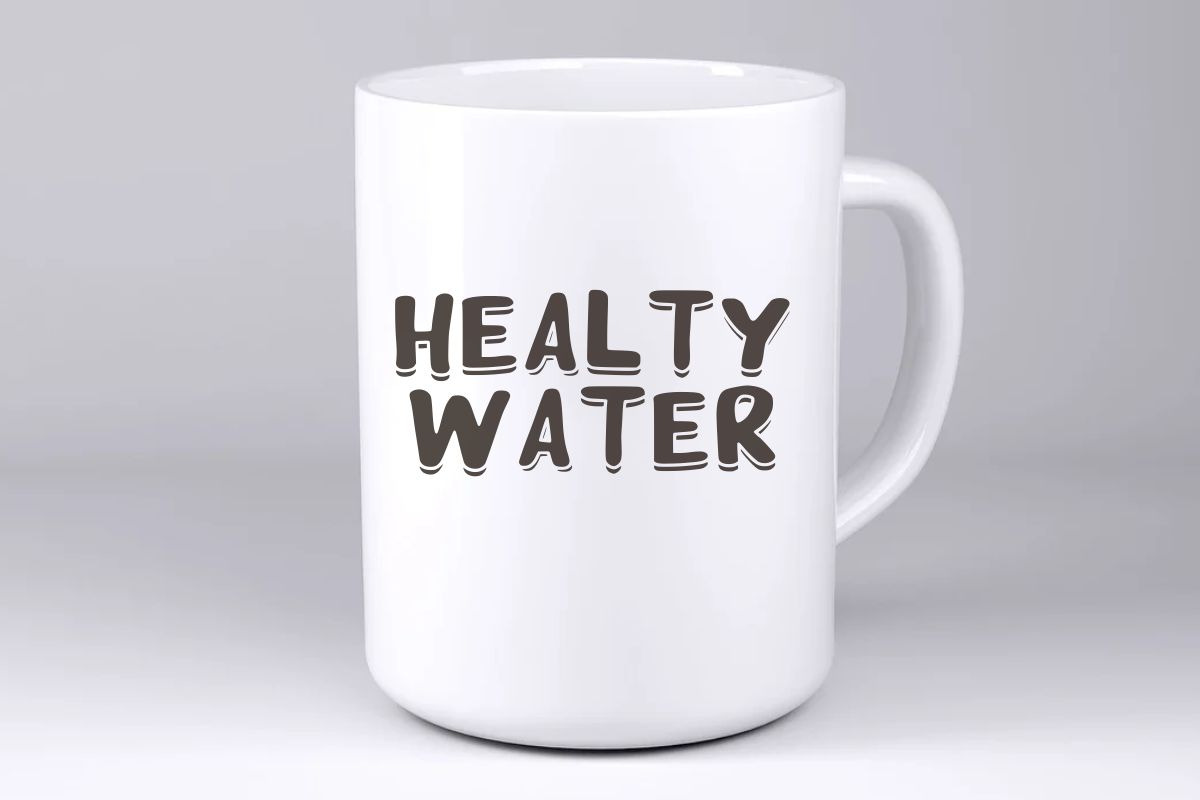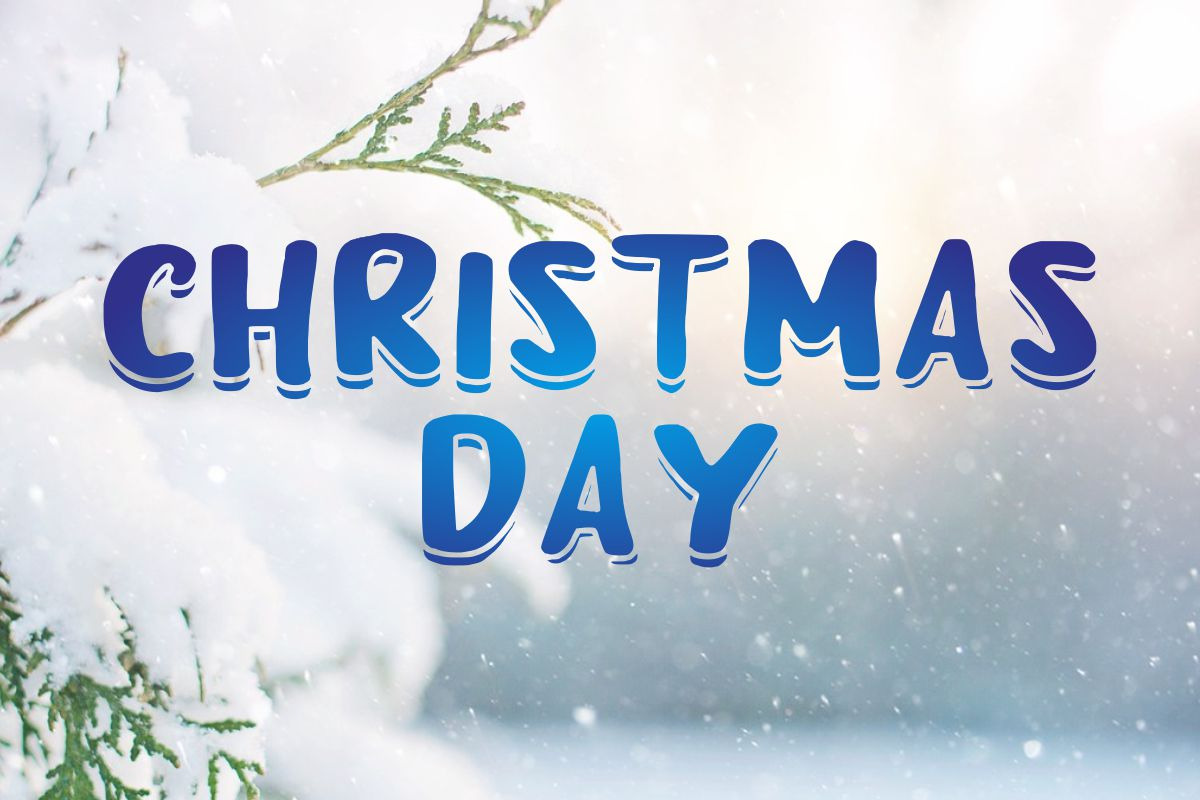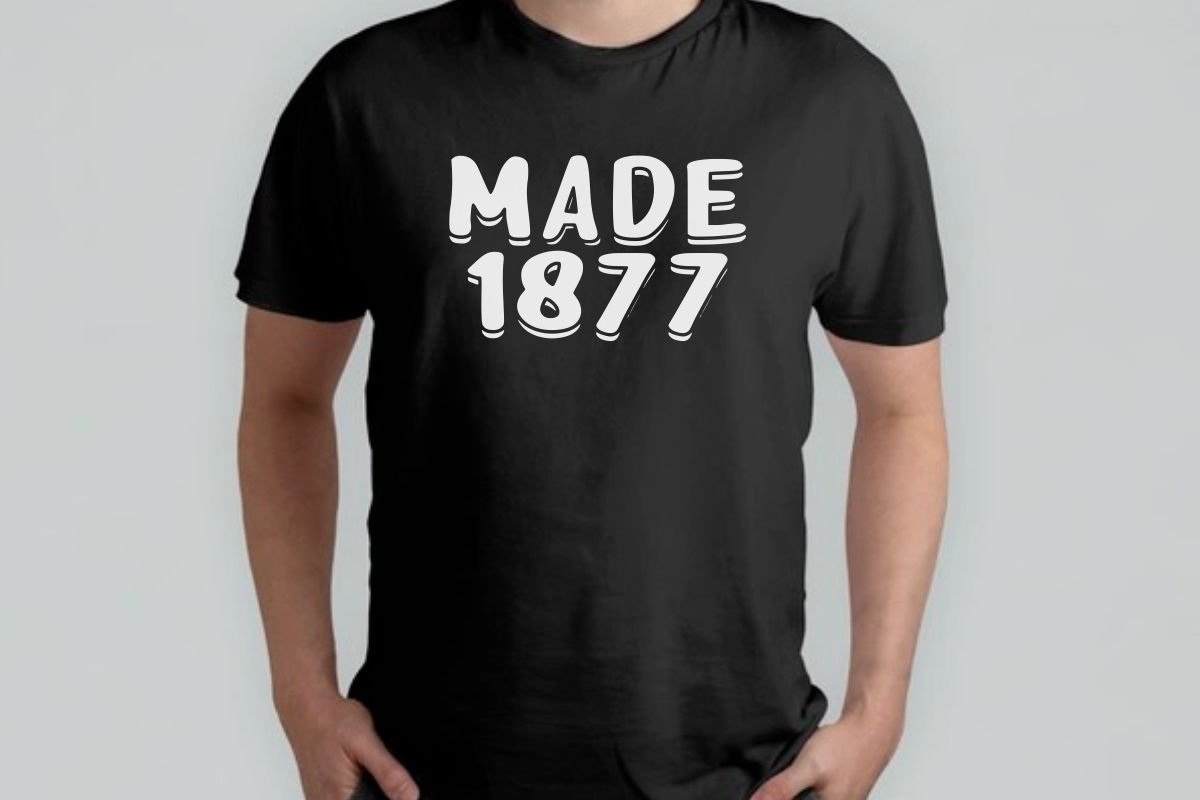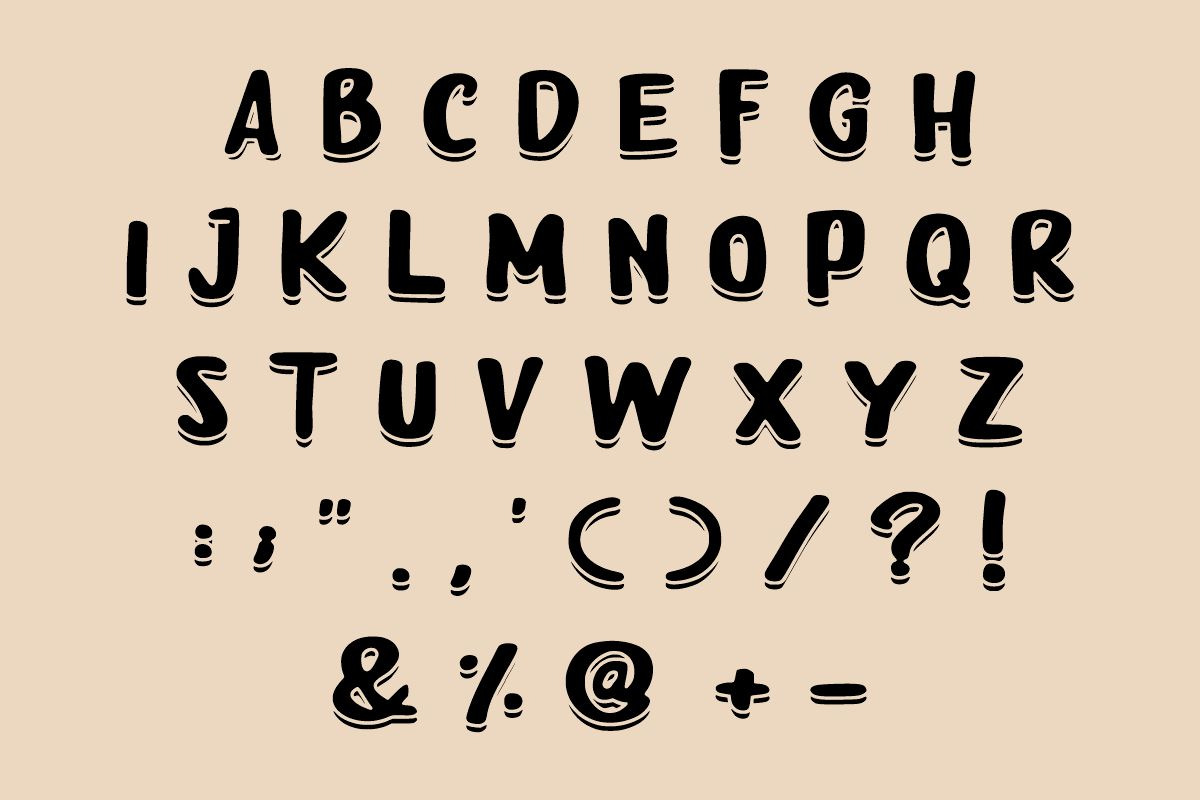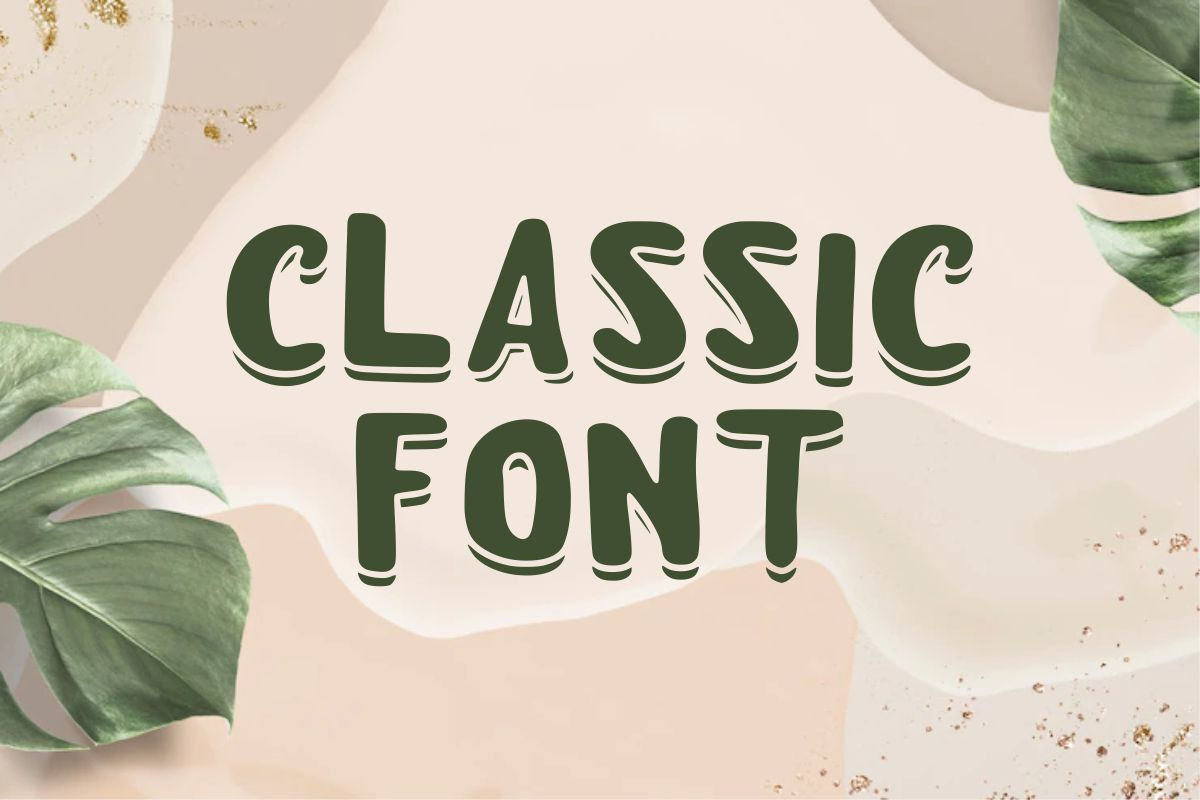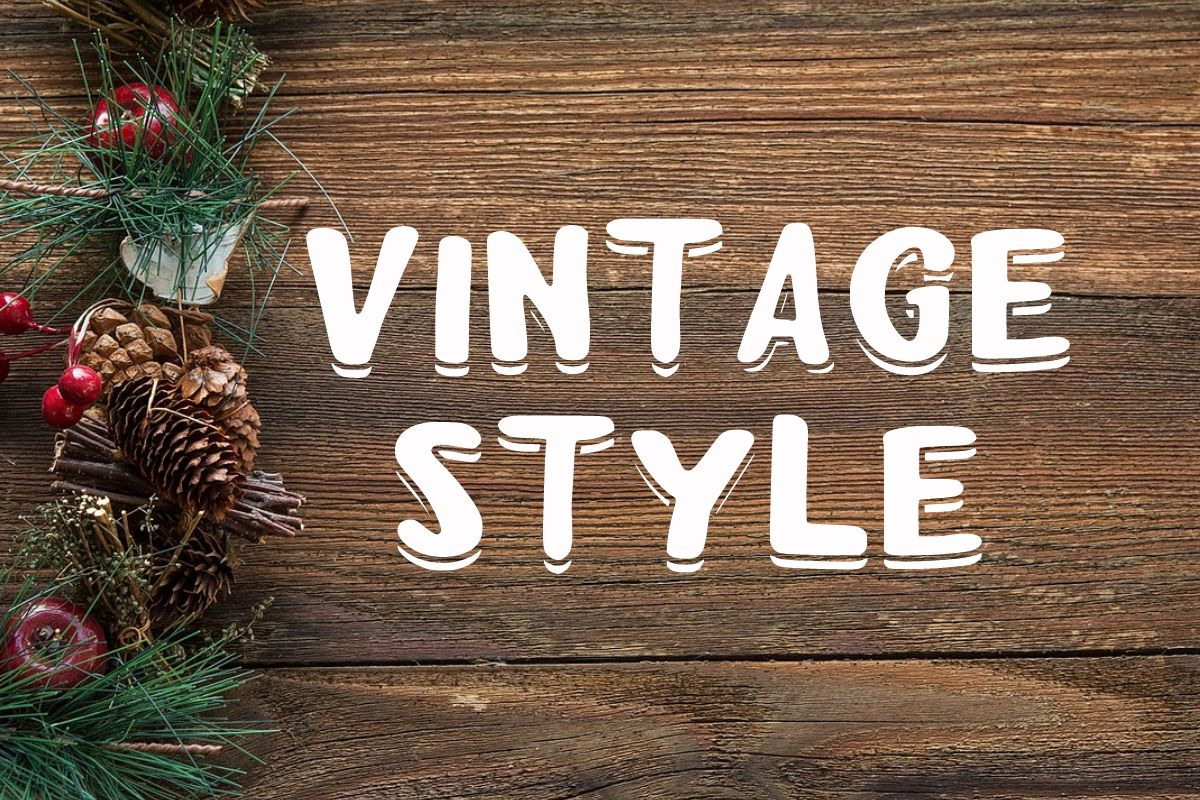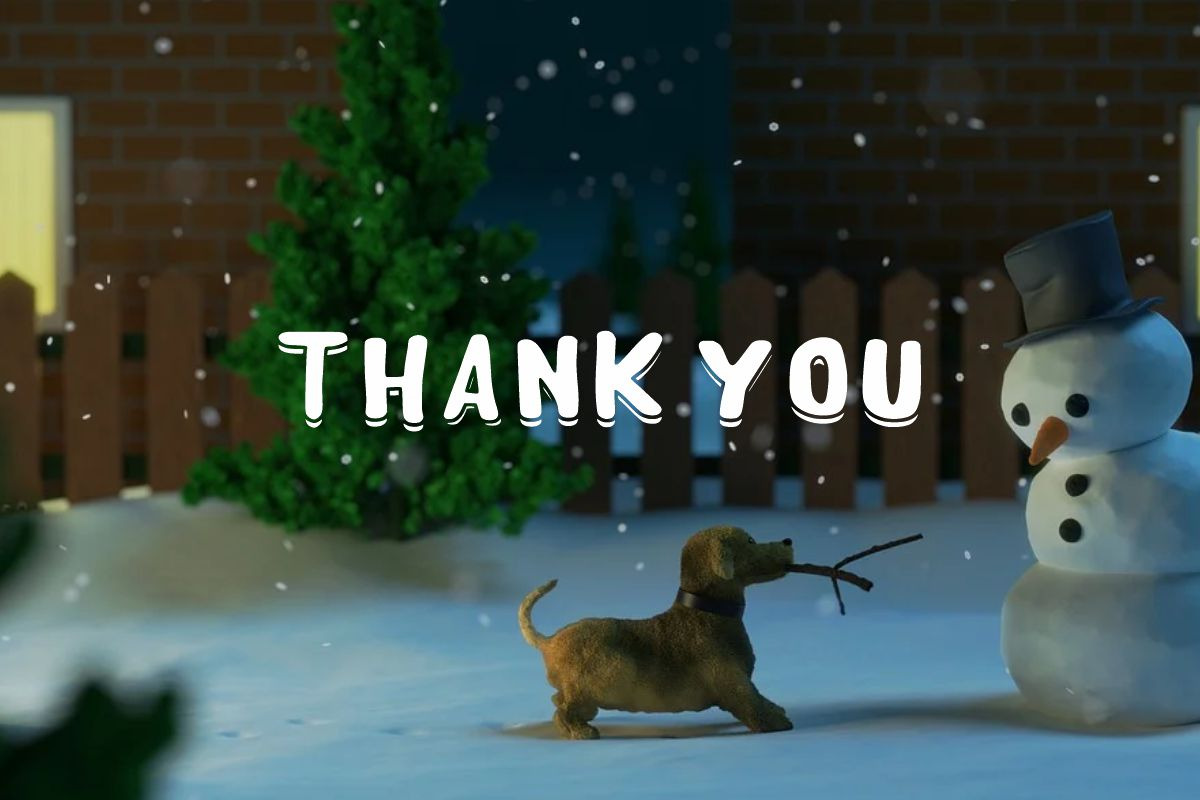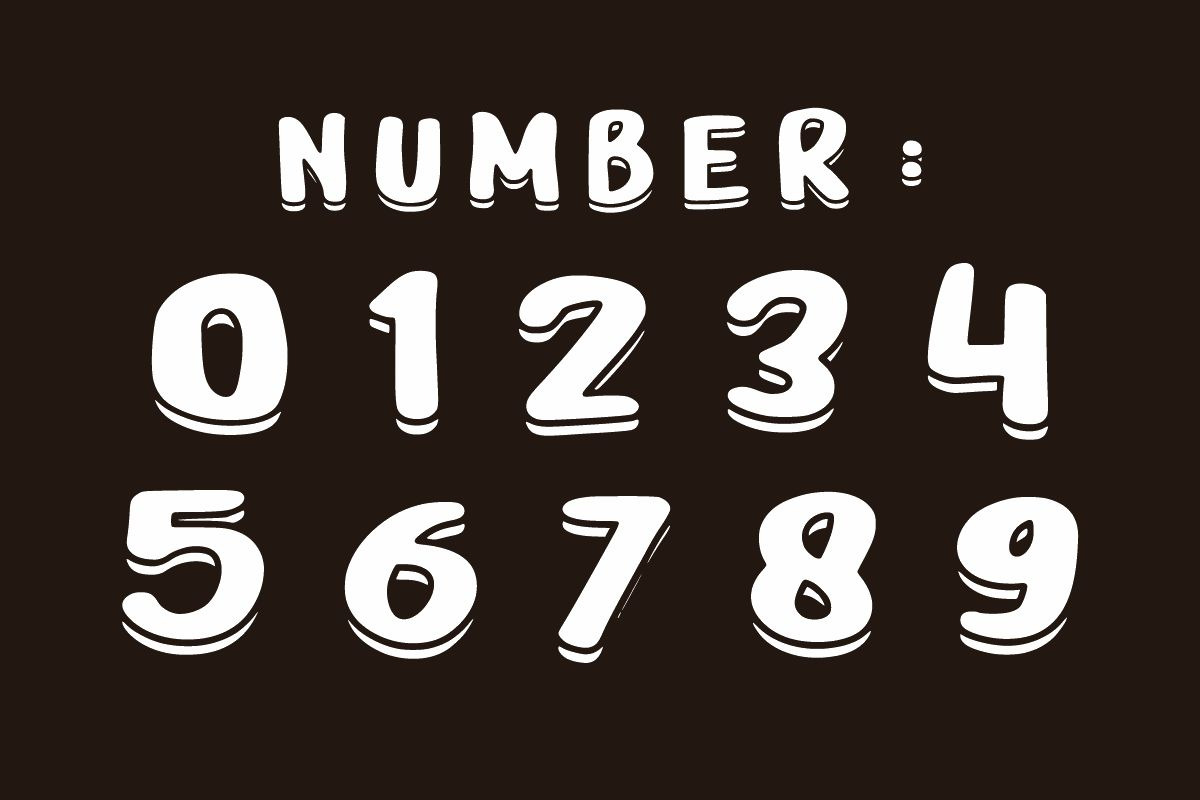
Party Winter
Party Winter is a fun and festive display font. It is suitable for any winter and holiday branding project, product packaging, invitation, quote, t-shirt, label, poster, and logo that you wish to develop.